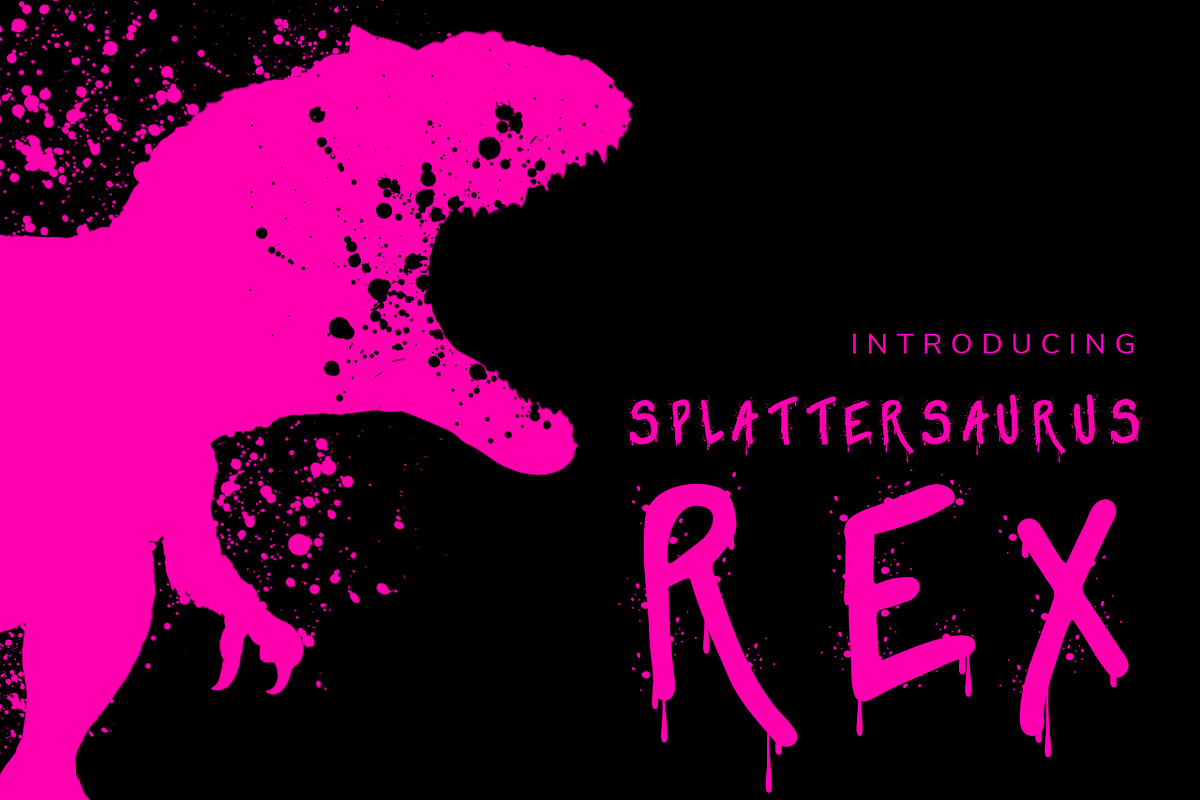
Splattersaurus Rex Font Free Download is a wild, playful, and prehistoric-inspired typeface that explodes with energy and fun. With its splattered textures, dino-sized letterforms, and comic-style attitude, this font is perfect for kids’ projects, party invites, game titles, YouTube thumbnails, and bold branding that roars with personality.
Whether you're designing for a Jurassic-themed birthday or launching a quirky product line, Splattersaurus Rex brings fun, movement, and a touch of chaos to your typography. It’s the perfect font for designers who aren’t afraid to go big, bold, and a little bit dino-crazy.